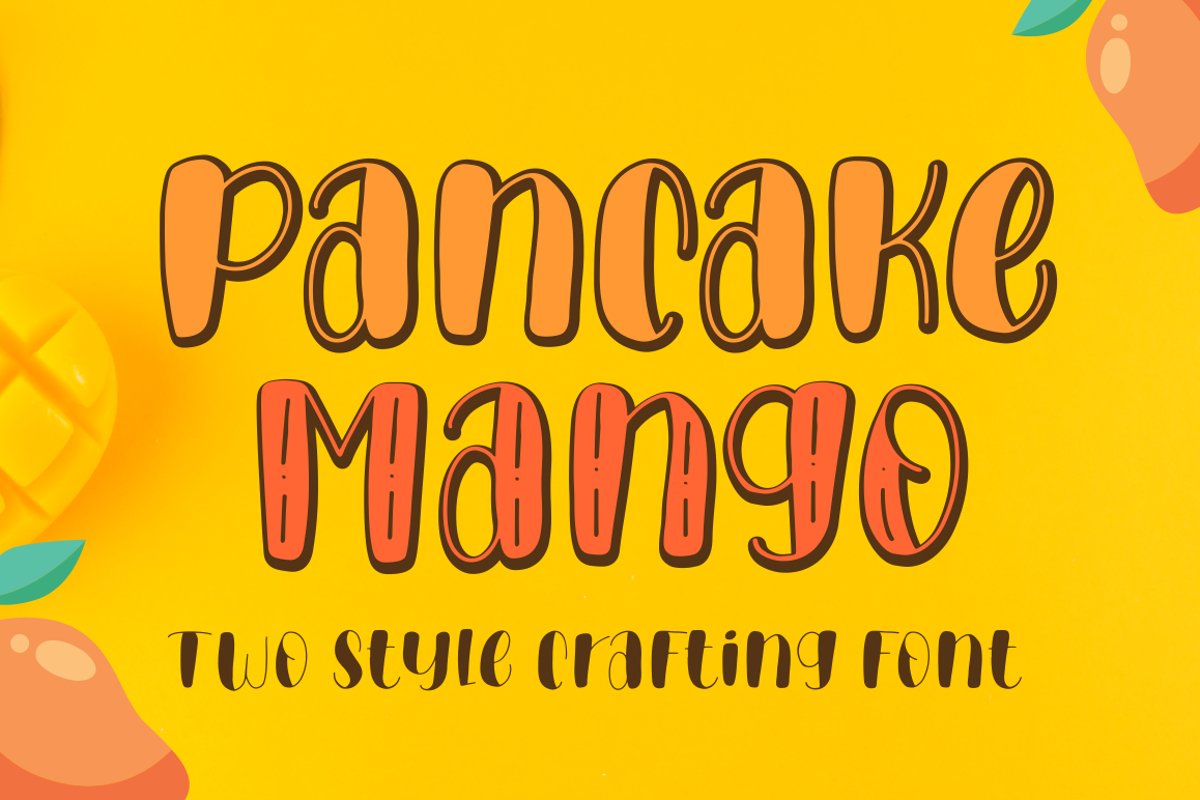
Pancake Mango - Handwritten Font
Pancake Mango
Pancake Mango is a lovely handwritten font, this font Is perfect for logo, invitation, stationery, wedding designs, social media posts, advertisements, product packaging, product designs, label, photography, watermark, special events or anything.
Pancake Mango comes with two style of uppercase and lowercase letters, multilingual symbols, numerals, punctuation.